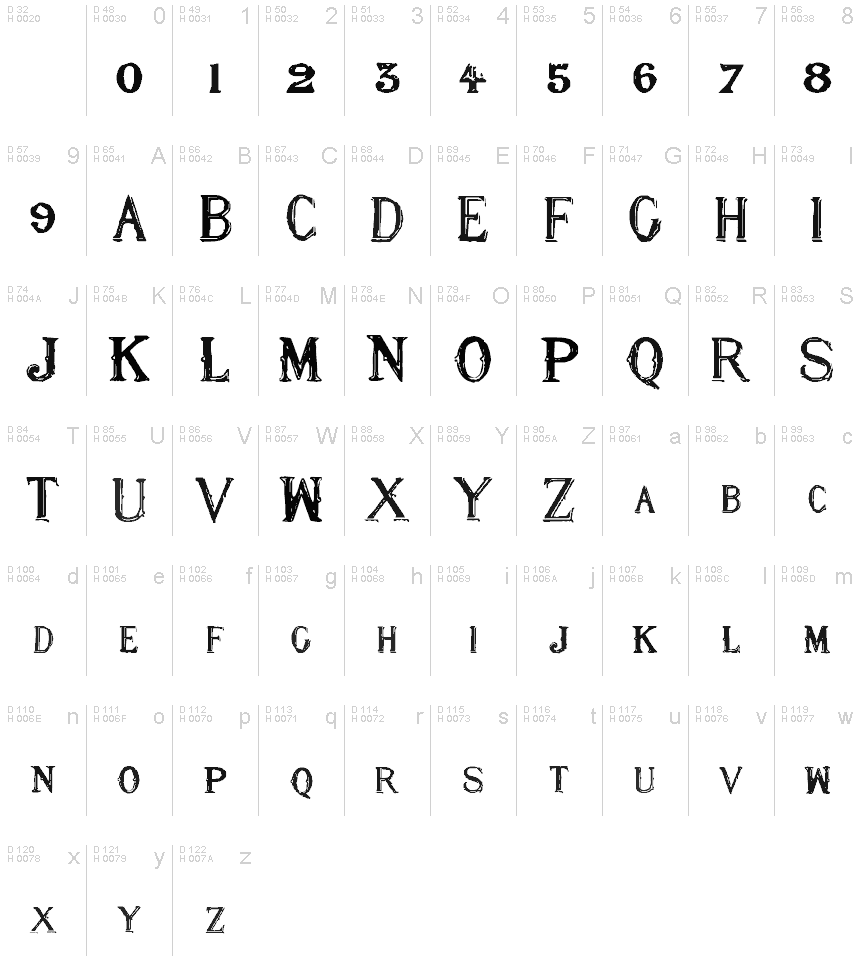
NineEight
Nine Eight is a striking display font crafted by Xerographer Fonts' Max Infeld. This condensed typeface exudes an old-world charm with its ornate, Gothic-inspired letterforms. The dramatic serifs and intricate flourishes lend the font a captivating, almost mystical quality, making it well-suited for a range of applications, from editorial design to branding and packaging.
Nine Eight's bold, attention-grabbing presence makes it an excellent choice for headers, titles, and other prominent textual elements, where it can command the viewer's attention and lend a sense of timeless elegance to the overall design.